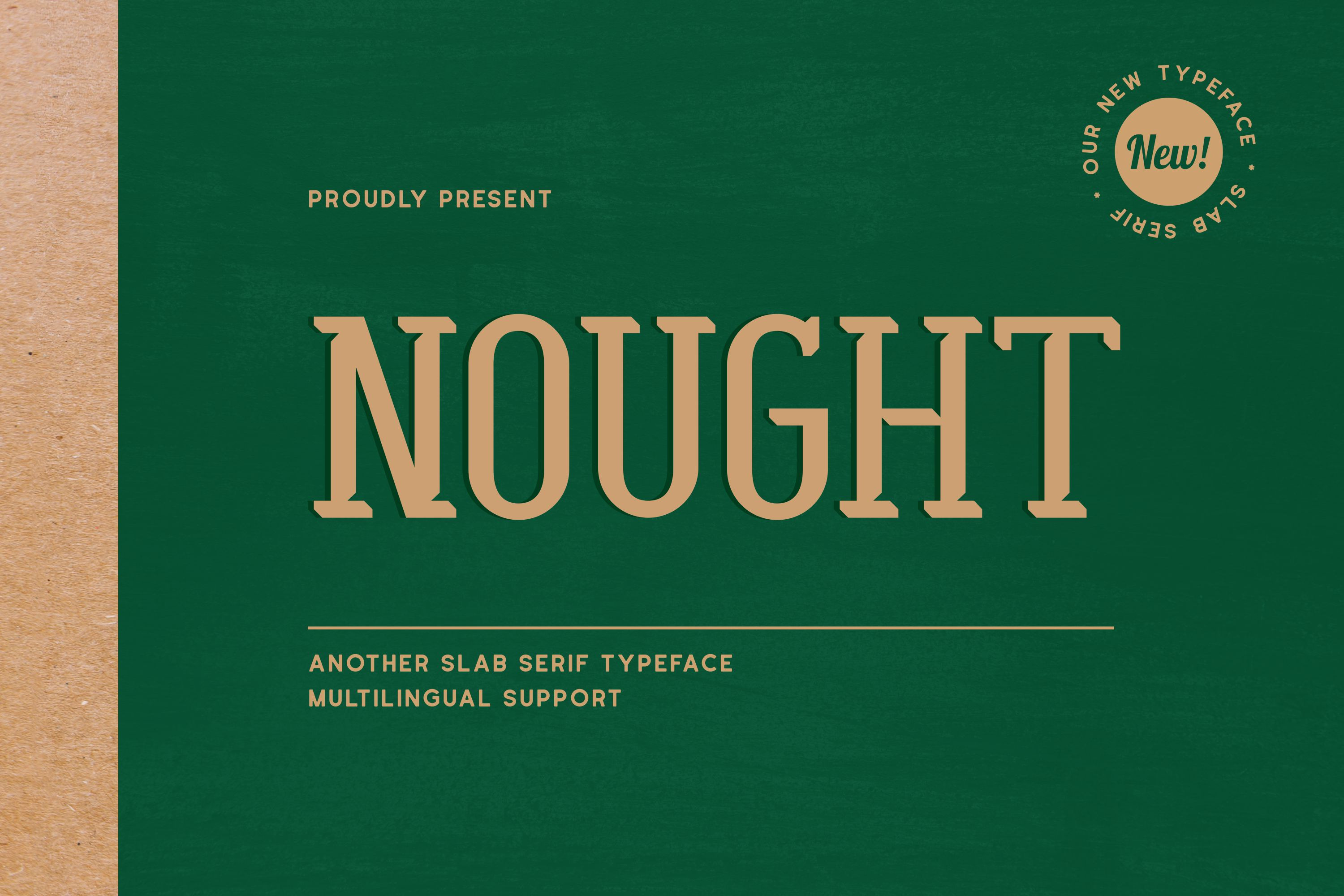
Nought - Another Slab Serif Typeface
Nought is another slab serif typeface, It is a display font with vintage and condensed look that perfect for branding projects, advertisements, product packaging, product designs, label, header, and any projects.
- Character set A-Z
- Numerals & punctuation